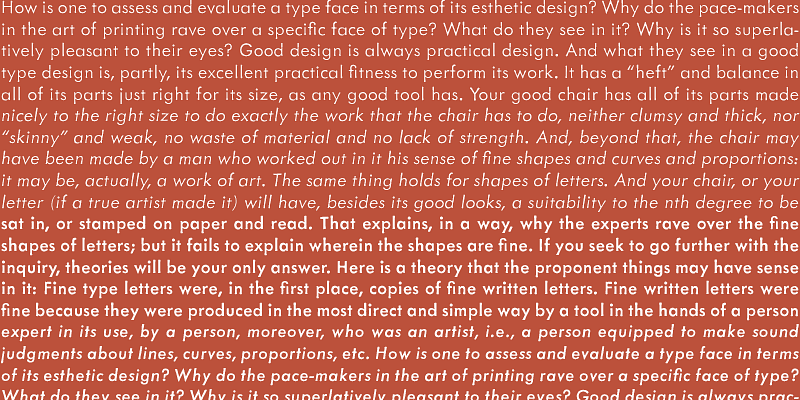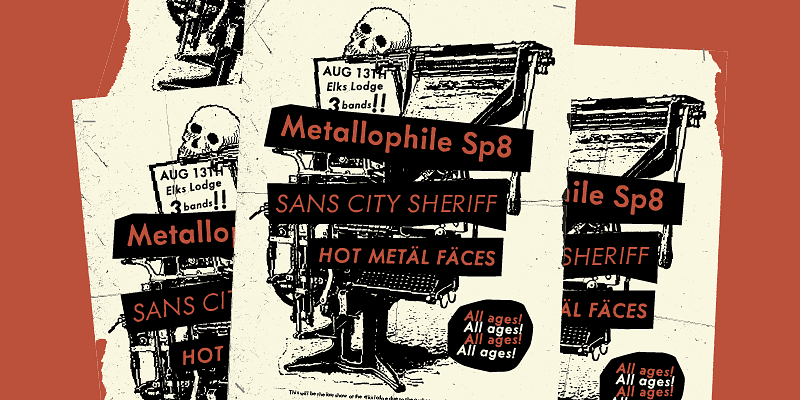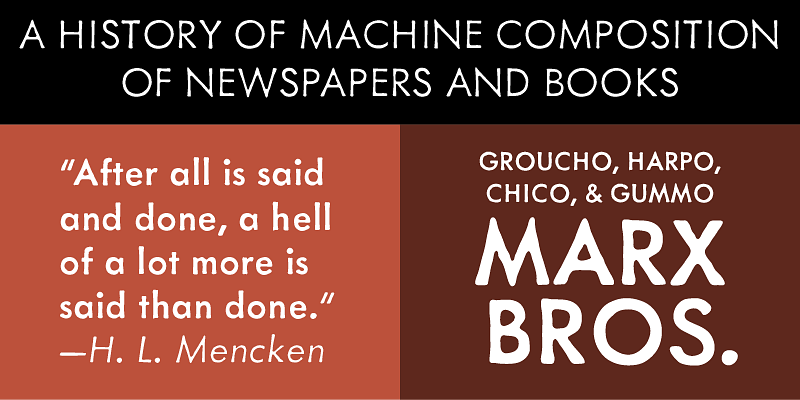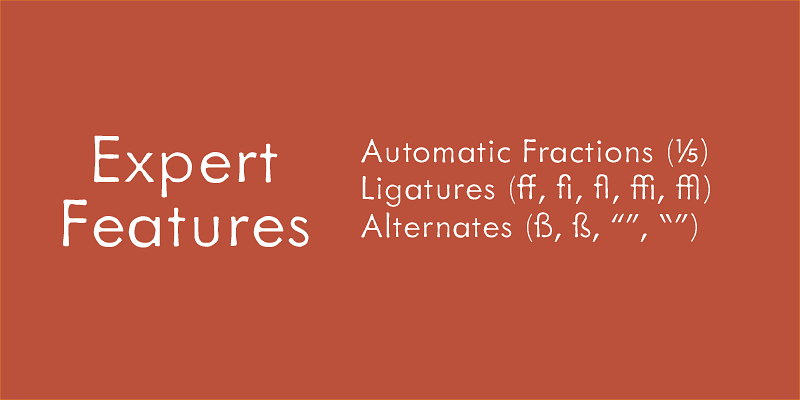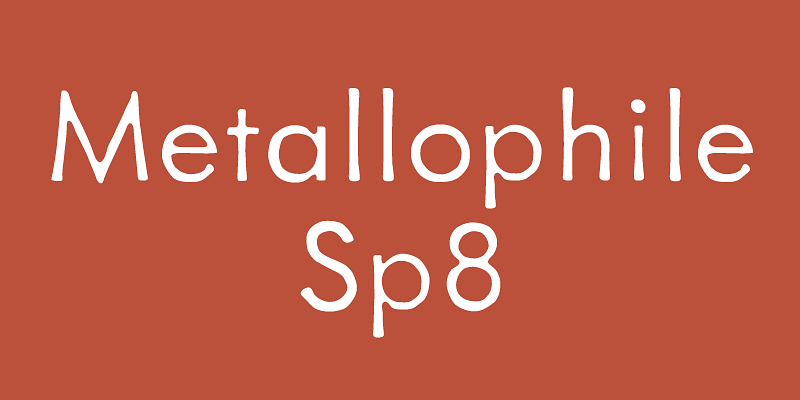
Metallophile Sp8 (2003, 2008) is a facsimile of 8-point sans serif type as set on a hot metal typesetting machine. The effect is very different from modern digital renditions of its cousin, Futura, which are coldly precise in and look quite different at text sizes. Hot metal faces were designed for specific point sizes, while modern digital faces take a one-font-for-all-sizes approach. Metallophile Sp8 captures much of the characteristic warmth of hot metal, which is particularly refreshing in such a geometric design.